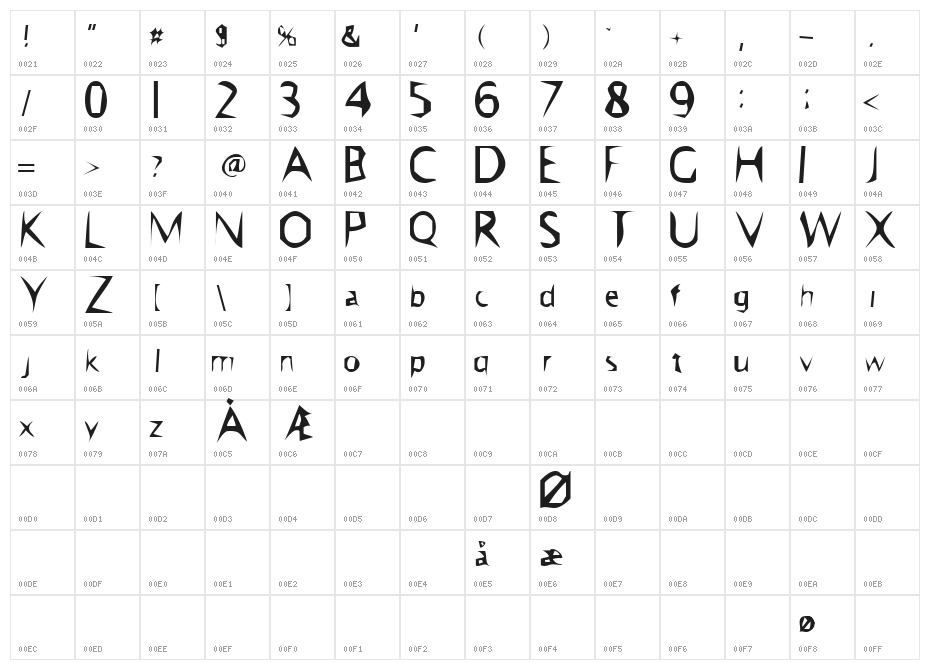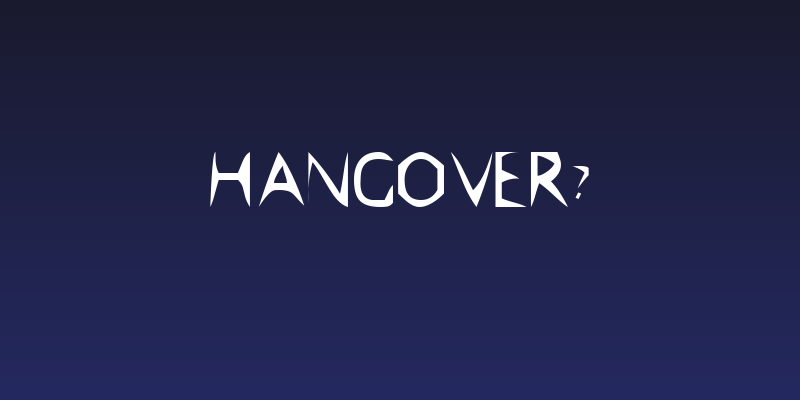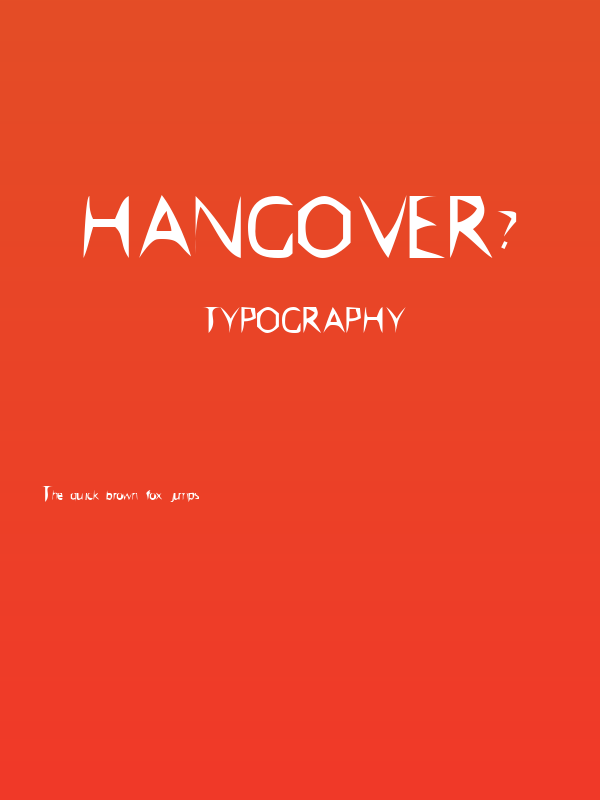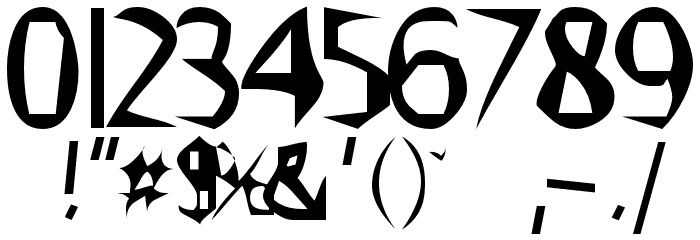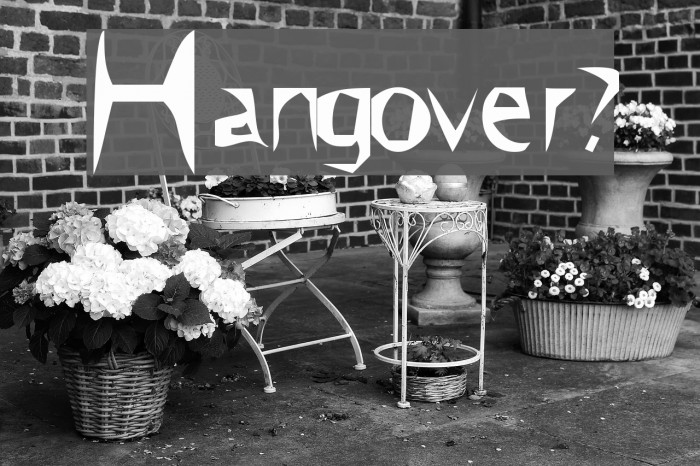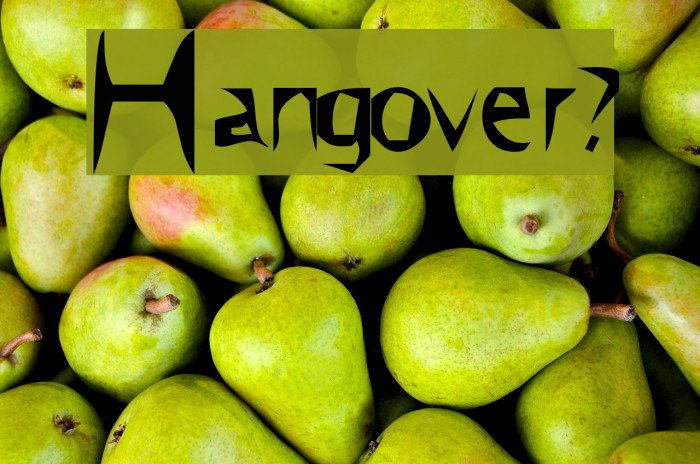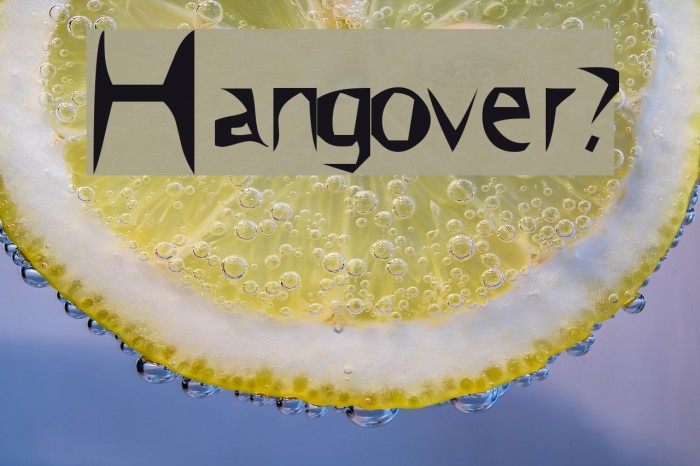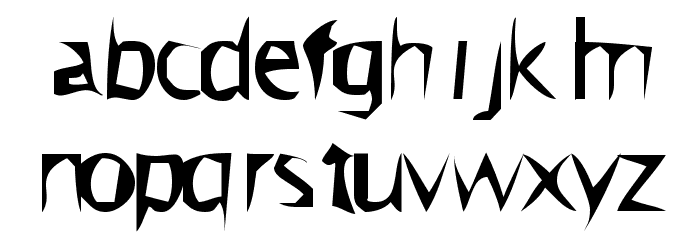
Hangover? Font
This font features a bold and edgy design with sharp, angular lines and a dynamic, energetic feel. The uppercase letters are particularly striking, with exaggerated points and a sense of movement that suggests a modern, rebellious attitude. The lowercase letters maintain this style, offering a cohesive look across the alphabet. Numbers are bold and distinctive, matching the overall aesthetic. Special characters are creatively integrated, adding to the font's unique personality. This font is ideal for projects that require a strong visual impact and a contemporary, unconventional style.
| Proposed Projects | Ideal for music album covers, event posters, or branding for edgy, modern products. |